Character Driven: Potch Auacherdkul
Glazier actually started with a simple question: 'Why serifs?' I couldn't find a clear answer, but the journey led me to explore fascinating forms in Latin script development, like rustic caps, uncial, carolingian, and more. The result is my take on historical shapes with a semi-formal twist.
Type design requires meticulous attention to detail. How do you stay patient and focused throughout the refinement process?
I think I'm kinda slow-paced. I prefer to sit and stare at the 'o' for hours than rush through different project aspects. It's sort of like a meditation practice in the process.
When did you first realize you wanted to release a typeface?
My first thought of typeface releasing was when I was working on 'Huai,' a bilingual typeface during my last 3 months at Type@Cooper. Before that, I dabbled in a few trial typefaces, but 'Huai' marked my official entry into the area of type design.
Are there any interesting anecdotes or stories related to the names you've given to your typefaces?
Naming typefaces is often a happy accident for me. It could be a chat with friends, random reading, or just an intuitive approach, like selecting characters I love and turning them into readable words.
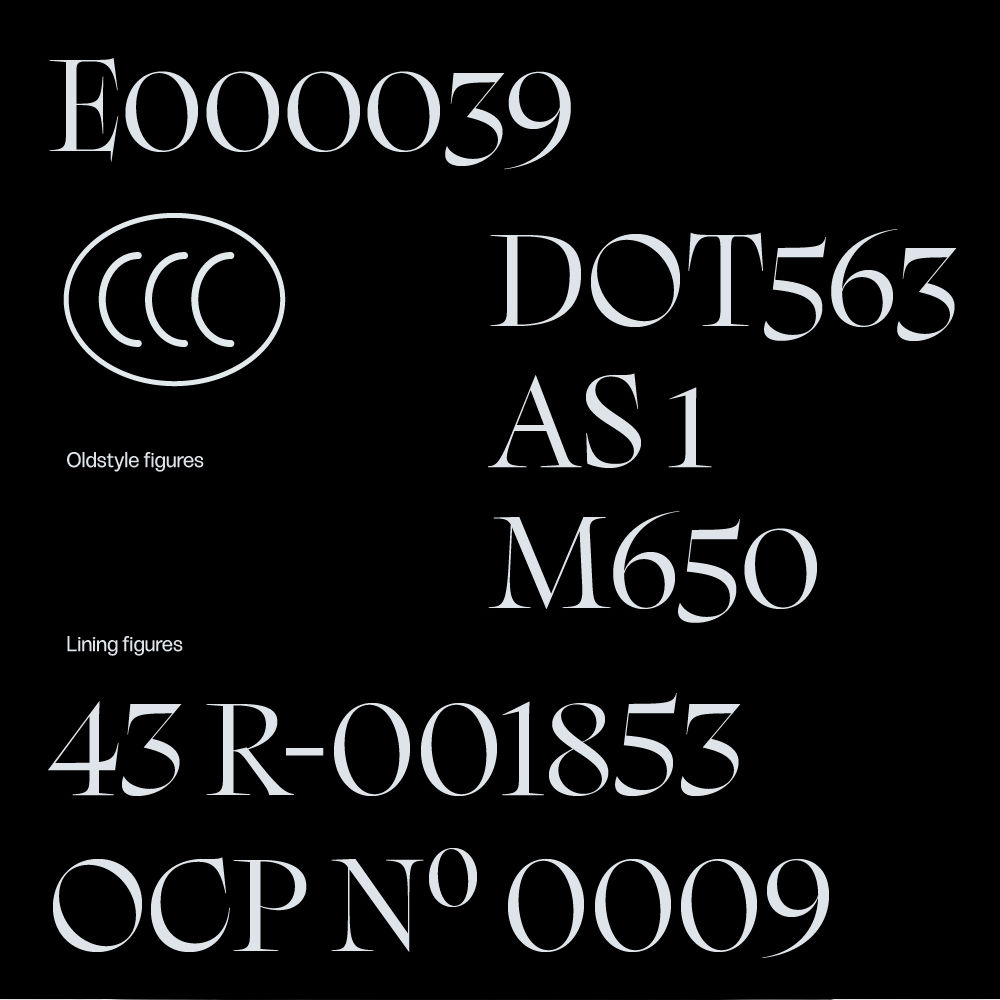
Living and working in Bangkok offers a unique blend of cultural inspiration. How does the vibrant energy and rich heritage of the city influence your design process, and are there any specific aspects of the city that find their way into your creative work?
The energy and heritage of Bangkok have a profound impact on my design process. I'm especially drawn to handwritten street signs and the quirks of vernacular type design. It's intriguing to see how the Latin script has dominated and influenced various scripts and how people have adapted it through a local-Latinized lens.
There’s more to life than just letters and fonts. When you’re home and quiet, what comfort food do you enjoy?
Papaya salad is my native! The one with fermented fish! Otherwise, Japanese ramen always heals. I don't cook, but I do clean.
In a world dominated by digital communication, how do you envision the future of type design evolving?
The future of type design is evolving in exciting ways, with AI becoming a big player in the design industry. It's a bit like when the computer was first invented – a game-changer. I'm curious to see how everything adapts during this era, especially how I could position myself as an ethical tool controller, gatekeeper, and so on.
Typeface design can be a daunting task. How do you manage the challenges and avoid feeling overwhelmed?
The snail is one of the creatures I admire (although there are a lot of them at my place during the rainy season). Slow but steady pace.